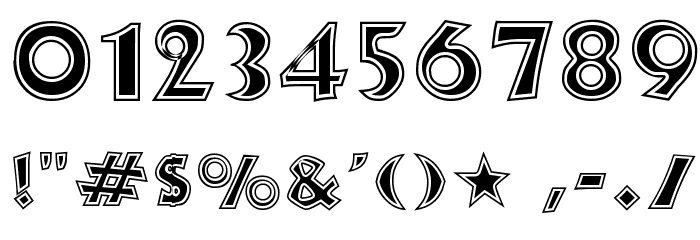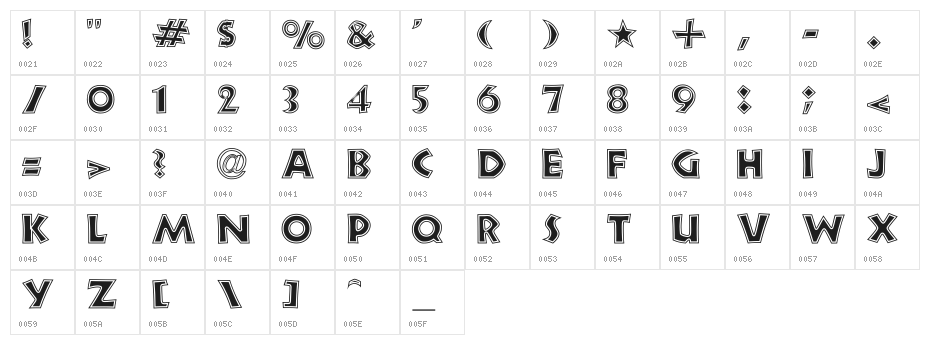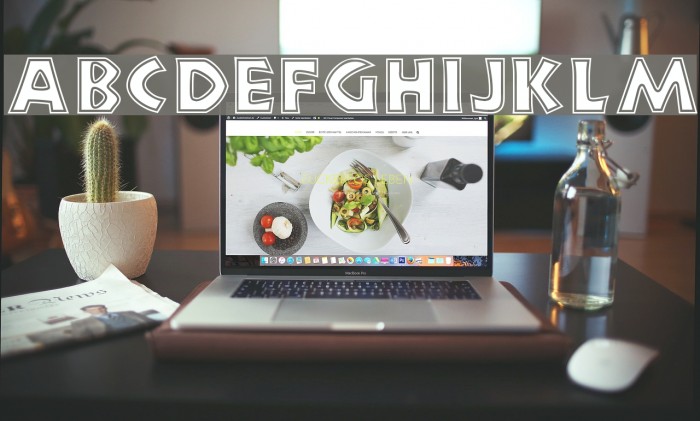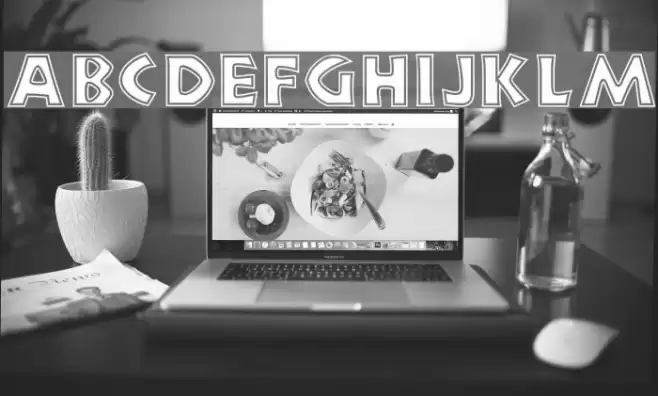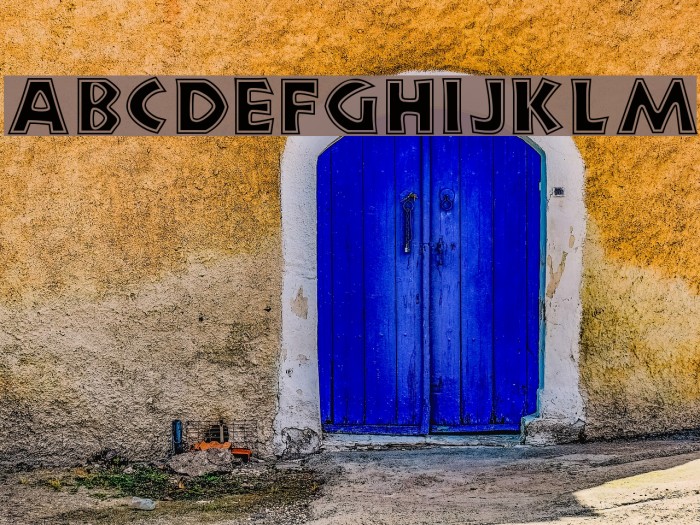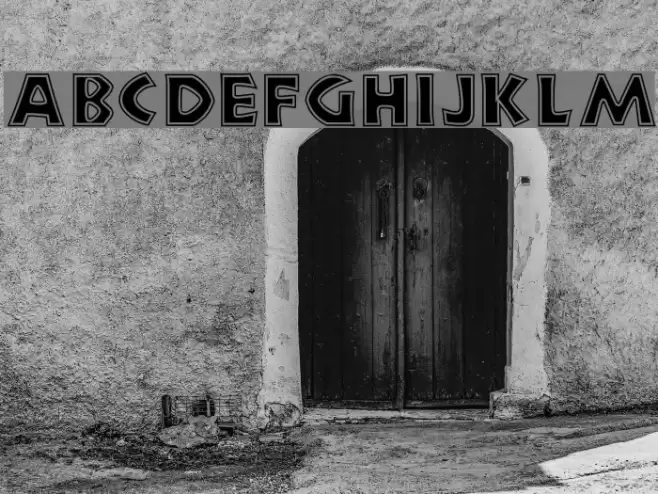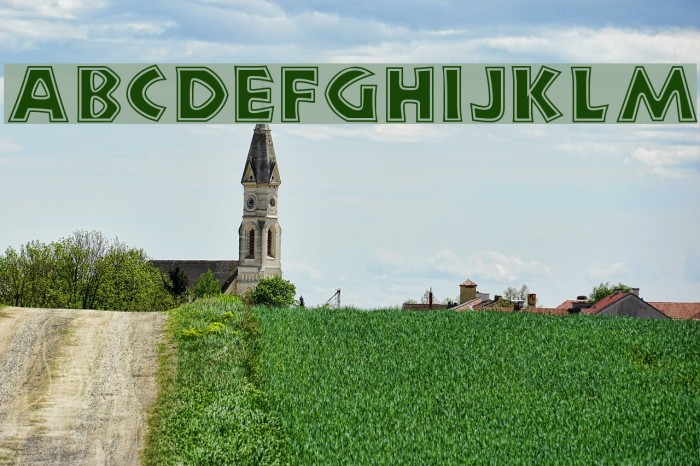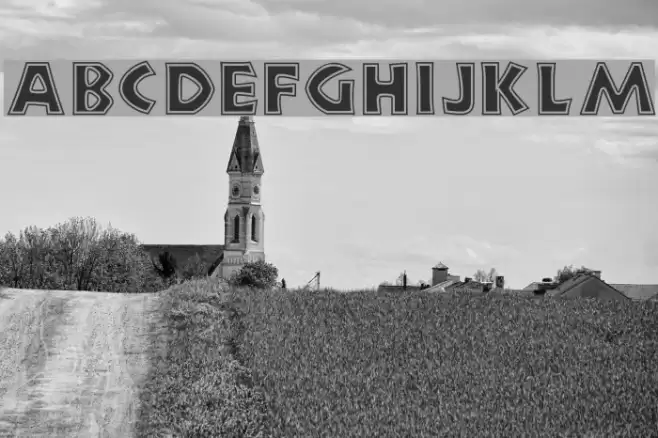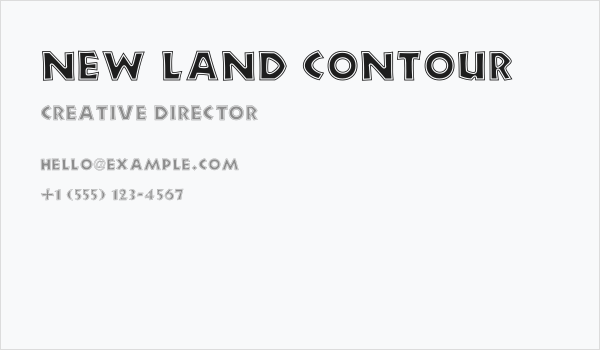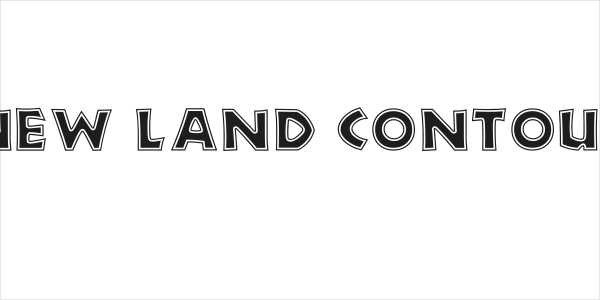
New Land Contour Font
New Land Contour Description
This font features a bold and striking design with a distinct contour effect that gives each character a three-dimensional appearance. The uppercase letters are crafted with sharp angles and clean lines, creating a sense of movement and energy. The numbers and special characters maintain this dynamic style, ensuring consistency across all elements. The font's unique outline adds depth, making it ideal for eye-catching designs. Its geometric structure is balanced with a playful touch, making it suitable for both modern and retro-themed projects.
| Proposed Projects | Ideal for posters, logos, headlines, and any design requiring a bold, eye-catching font. |